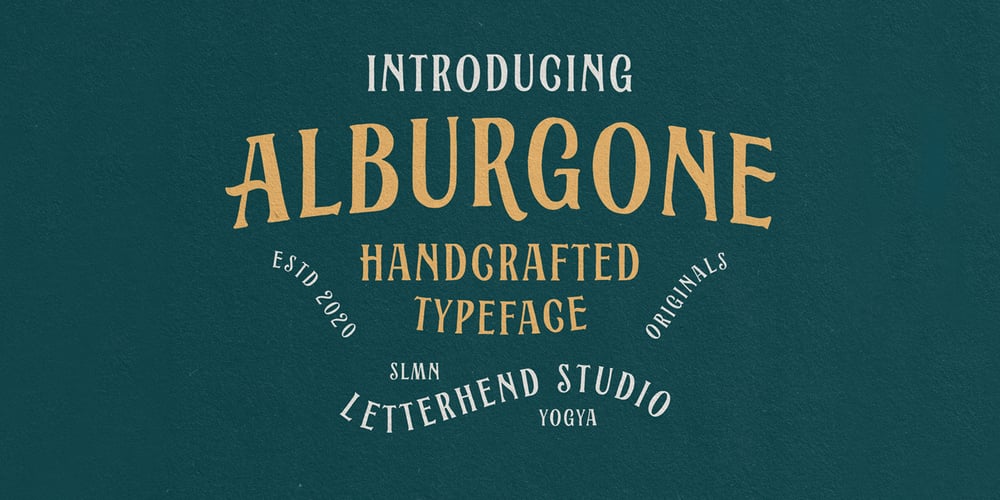
Alburgone Font Family was designed by Hendry Juanda and published by Letterhend. Alburgone contains 4 styles and family package options. Alburgone is a hand lettering typeface with nostalgic look and feel! This font perfectly made to be applied especially in logo, and the other various formal forms such as invitations, labels, magazines, books, greeting / wedding cards, packaging, fashion, make up, stationery, novels, labels or any type of advertising purpose.Features: 4 styles (Regular, Slanted, Outline Regular, Outline Slanted) numbers and punctuation multi-lingual support PUA encoded We highly recommend using a program that supports OpenType features and Glyphs panels like many of Adobe apps and Corel Draw, so you can see and access all Glyph variations.Email us to letterhend@gmail.com if you need something! Happy Designing!